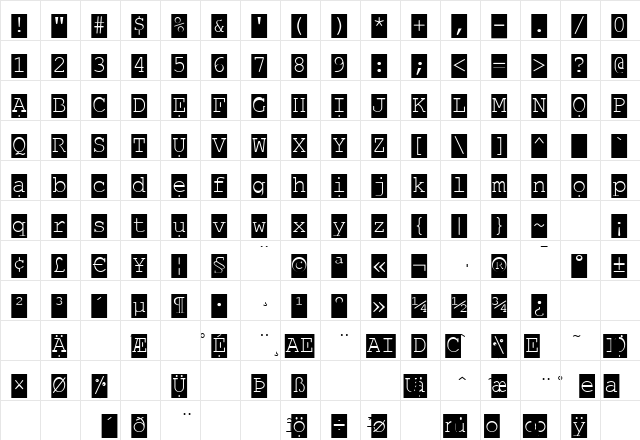
ReadingHelper Invers
ReadingHelper offers clean, dependable letterforms without strong stylistic allegiance, making it a practical choice for designers who need flexibility.